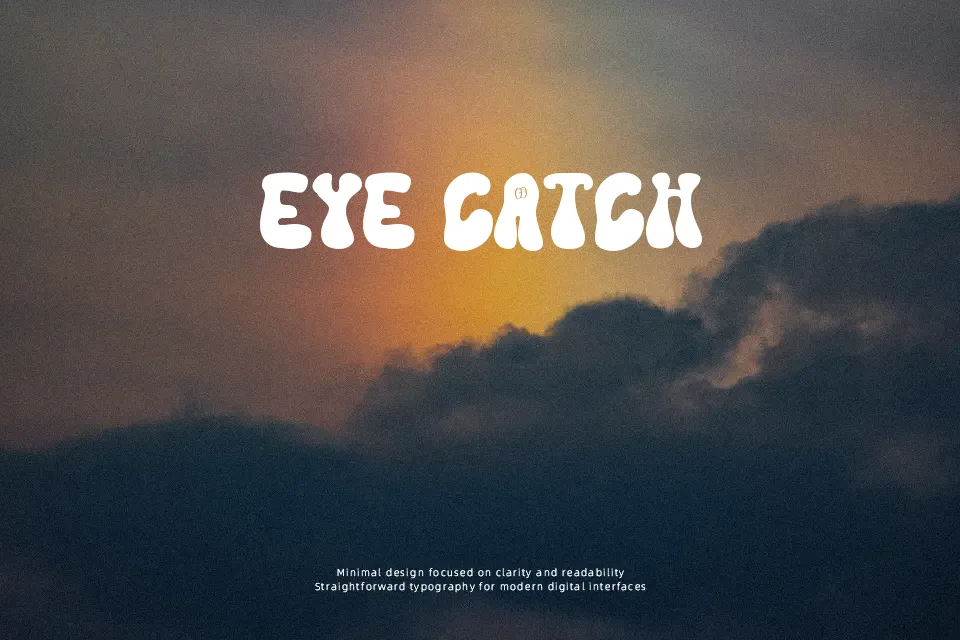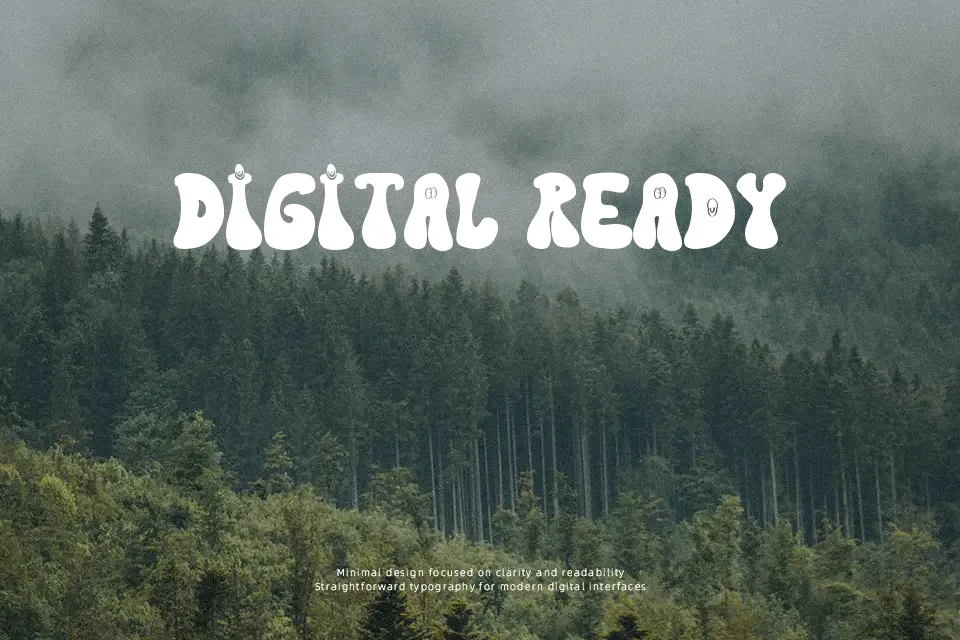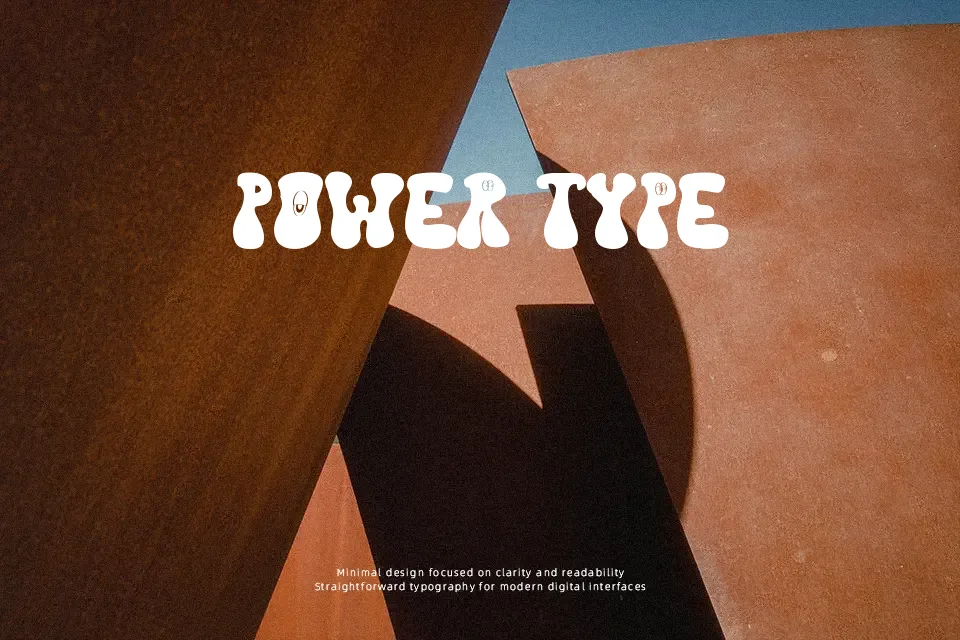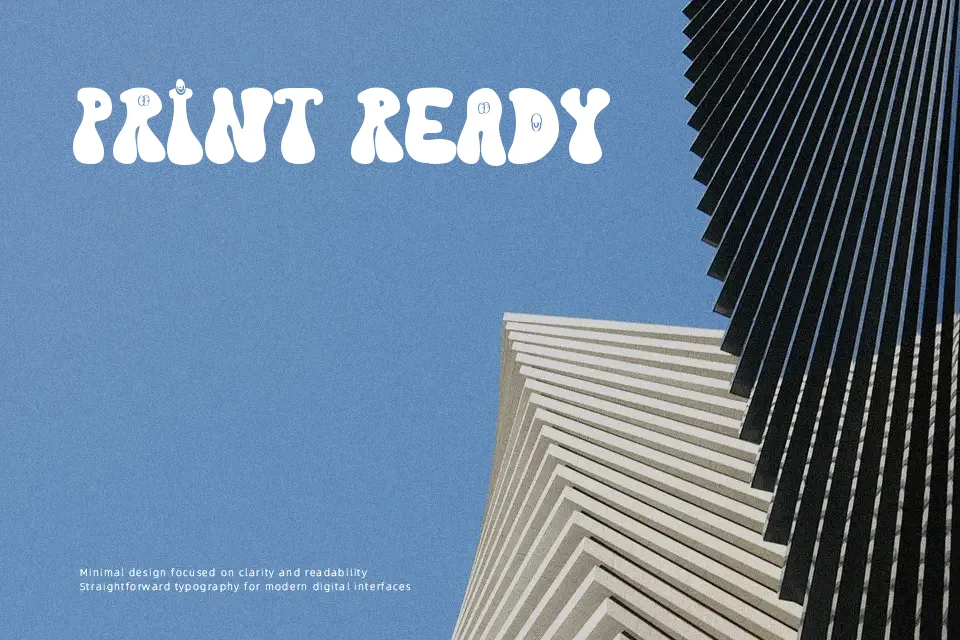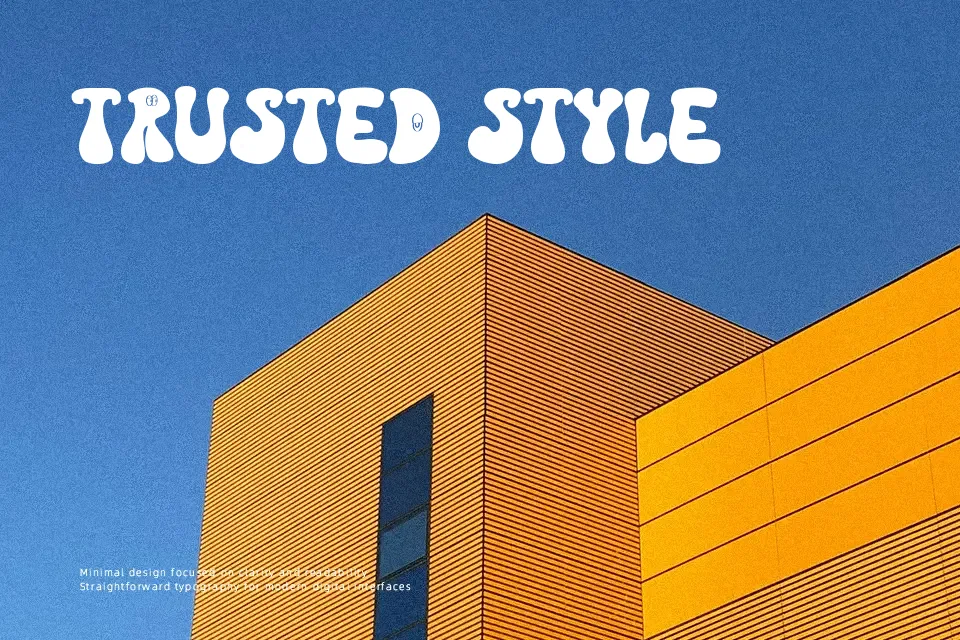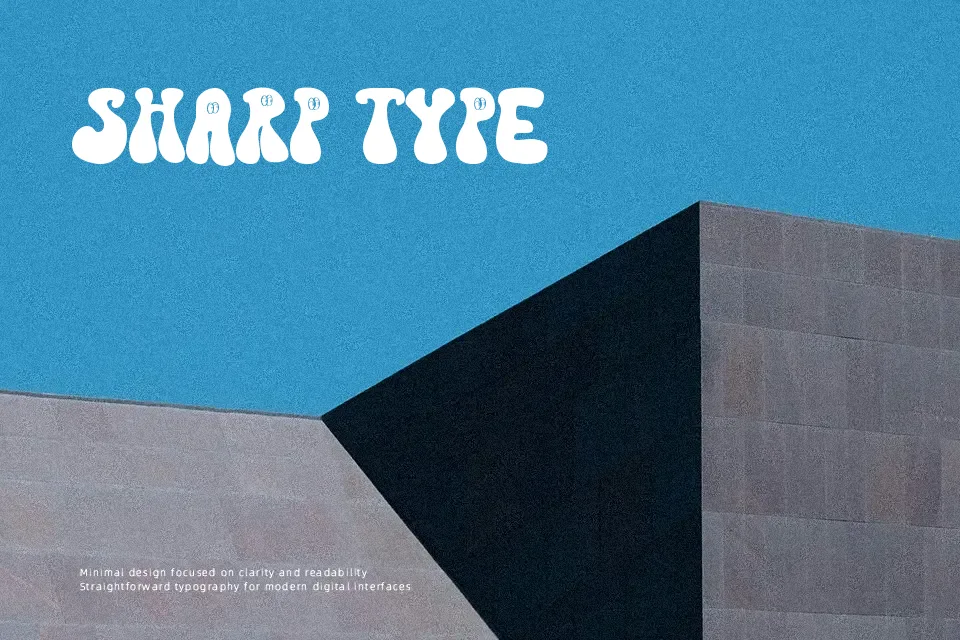
Black Cyclops Font
Black Cyclops is a bold, groovy display typeface designed by Annisa Nur Afni that channels distinct retro energy. Featuring thick, fluid strokes and tightly packed letterforms, it commands attention while maintaining an approachable vibe. The rounded, flowing structure establishes a strong foundation for large-scale applications like festival posters, lively product packaging, and nostalgic branding.
Because of its heavy weight and quirky proportions, Black Cyclops performs brilliantly as a standalone headline but struggles significantly in smaller sizes. It falls short in body paragraphs, detailed editorial layouts, or corporate documents where legibility remains paramount. If your design demands a vibrant aesthetic with a modern twist, this display font delivers a striking blend of playfulness and visual impact.
– Eye-catching festival posters
– Retro-themed product packaging
– Bold branding and logo marks
– Striking social media headers
– Long-form body paragraphs
– Small-scale interface design
– Formal corporate documentation
Perfect for branding, headline, and music, with a bold and decorative style.